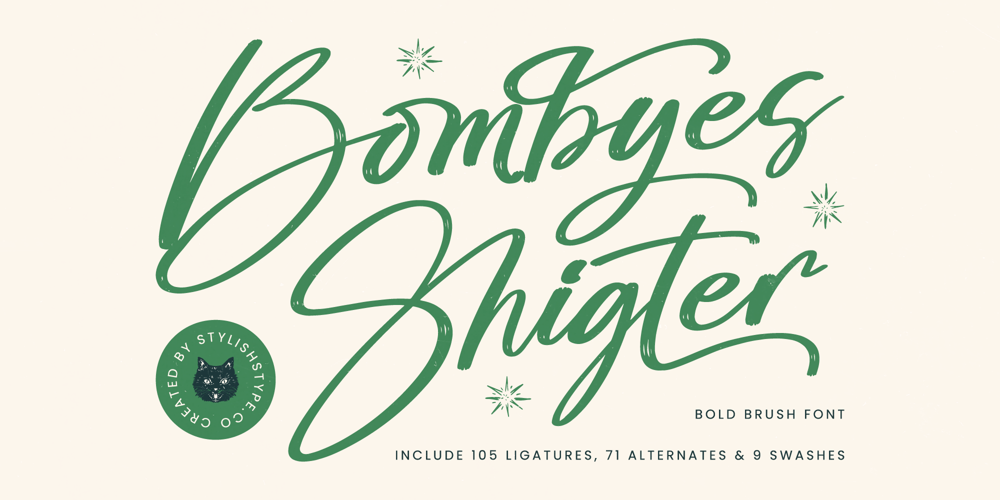
Bombyes Shigter
Bombyes Shigter font
Bombyes Shigter Font Family was designed by Heru Utama Putra and published by Stylishtype Studio. Bombyes Shigter contains 2 styles and family package options. Bombyes Shigter – Bold Brush Font , from Stylishtype , Suitable for any projects such as: logos, branding projects, homeware designs, product packaging, mugs, quotes, posters, shopping bags, t-shirts, book covers, name card, invitation cards, greeting cards, label, photography, watermark, special events, and all your other luxury and beautiful projects that need a Luxury Script taste.